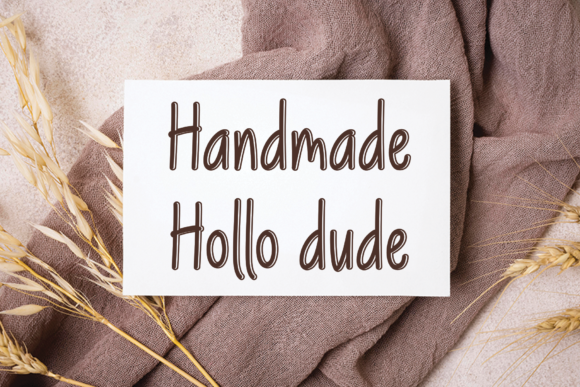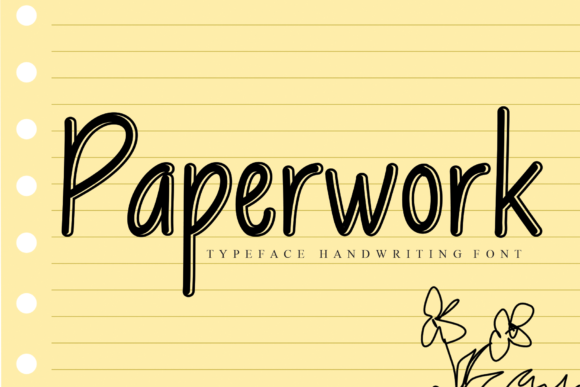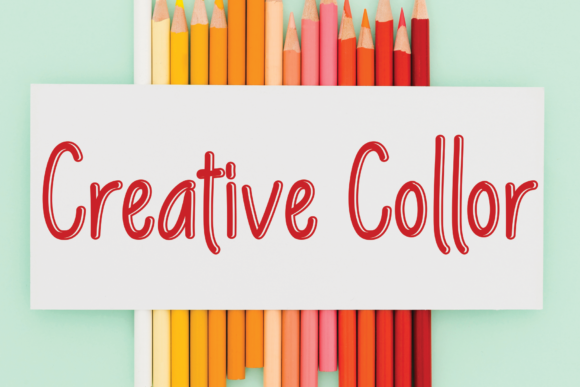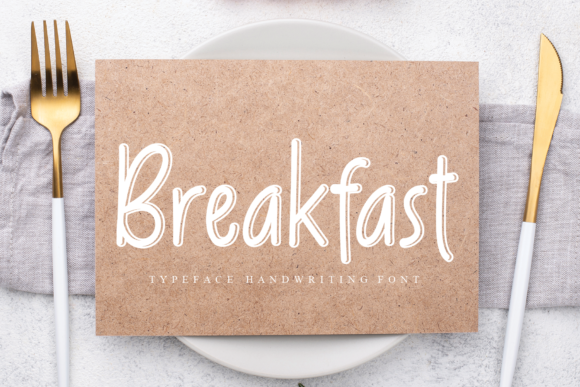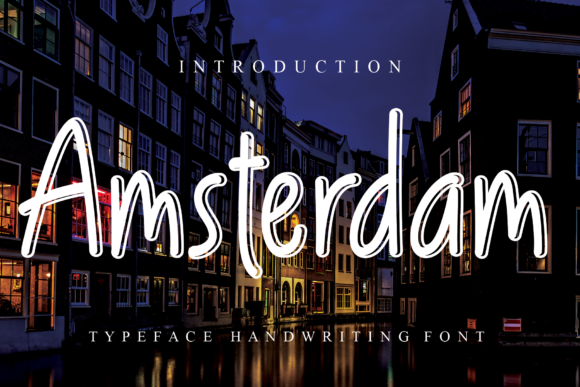
The Amsterdam Font: A Timeless Choice for Creative Projects
I’ll never forget the time I was working on a wedding invitation project, and my client asked for a font that was both elegant and playful. I scoured the internet, trying out font after font, but nothing seemed quite right. That was until I stumbled upon the Amsterdam font. Its classic, handwritten style instantly captured the essence of what my client was looking for, and it has since become one of my go-to fonts for a variety of creative projects.
A Personal Review of Amsterdam Font
The Amsterdam font is an extraordinary handwritten font that features a classic style, making it perfect for a wide range of applications, from wall displays and wedding invitations to social media posts, advertisements, product packaging, and more!
What I Love About Amsterdam Font
- ✨ Elegant and sophisticated, yet approachable and friendly
- ✅ Highly versatile, suitable for various design projects
- 💕 Beautifully crafted, with a high level of attention to detail
- 📚 Supports multiple languages and features a range of glyphs and stylistic alternates
While the Amsterdam font is an excellent choice for many projects, there are a few things to keep in mind:
- 🤔 Some users may find the font a bit too ornate for very casual or playful designs
- ⚠️ As with any font, it’s essential to test it thoroughly for legibility, especially when using it for body text or in smaller sizes
The Story Behind Amsterdam Font
The Amsterdam font was designed with the intention of creating a timeless, elegant font that would evoke the classic feel of handwritten scripts. The designer aimed to craft a font that was both sophisticated and approachable, making it perfect for a wide range of creative projects.
| What type of projects is the Amsterdam font best suited for? | The Amsterdam font is highly versatile and can be used for a variety of projects, including wall displays, wedding invitations, social media posts, advertisements, product packaging, and more. |
| Is the Amsterdam font suitable for body text? | While the Amsterdam font is beautiful and elegant, it may not be the best choice for body text, especially in smaller sizes. It’s better suited for headings, titles, and short paragraphs. |
| Does the Amsterdam font support multiple languages? | Yes, the Amsterdam font supports multiple languages and features a range of glyphs and stylistic alternates, making it a great choice for international designs. |